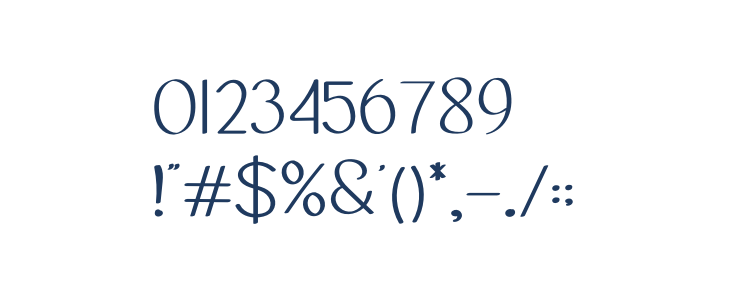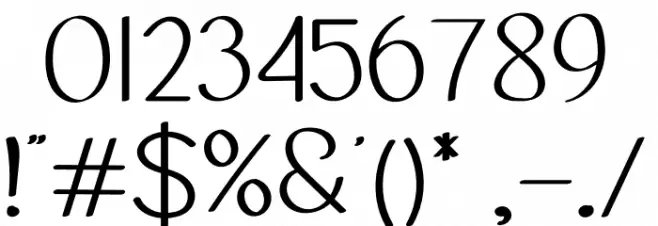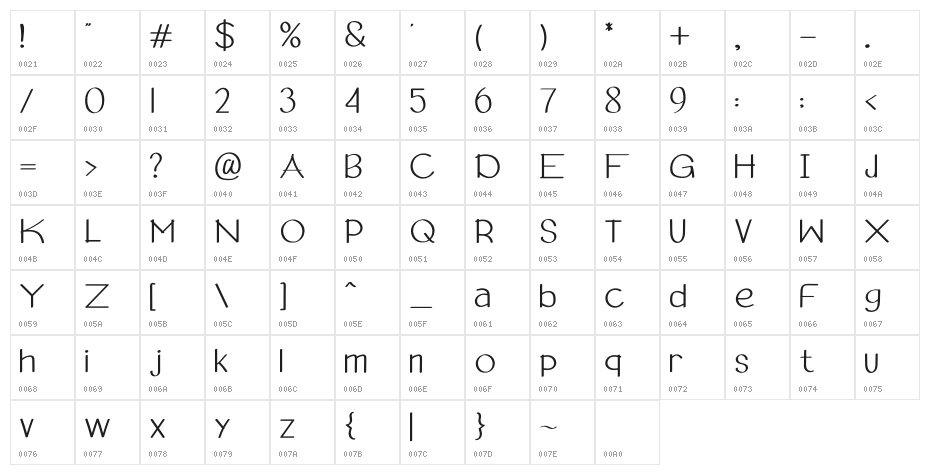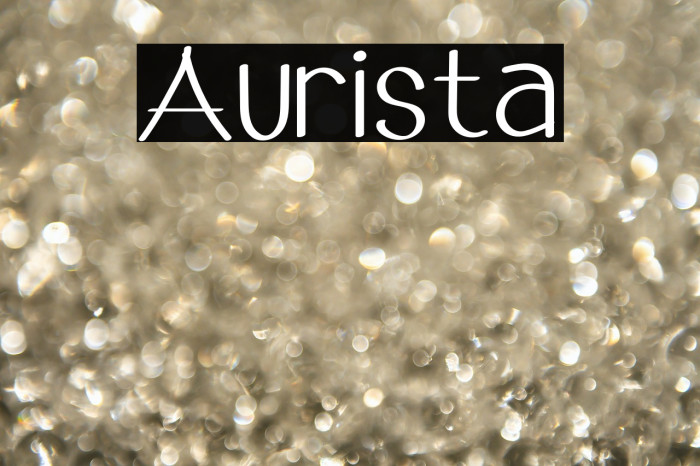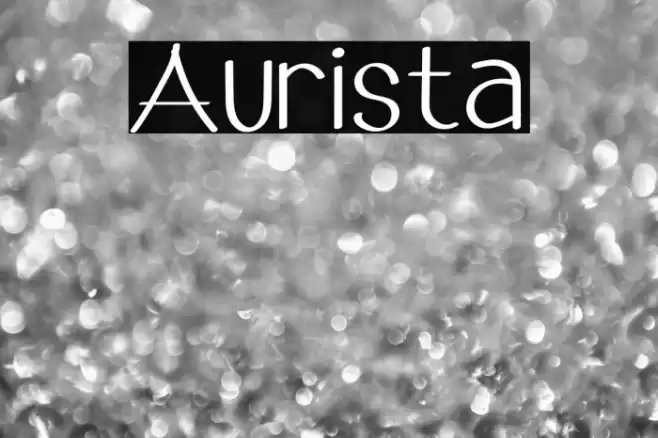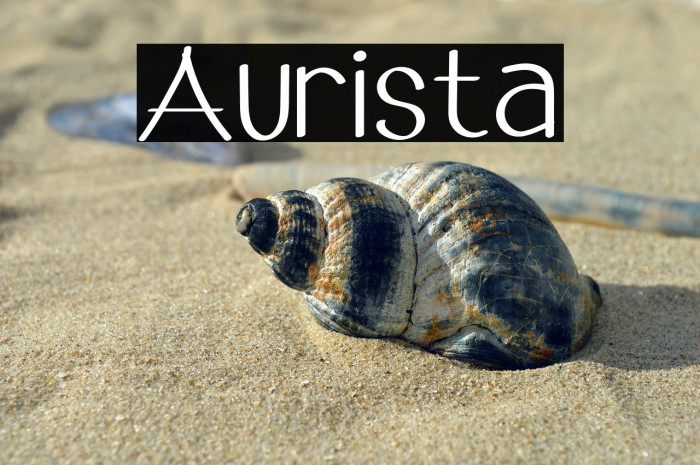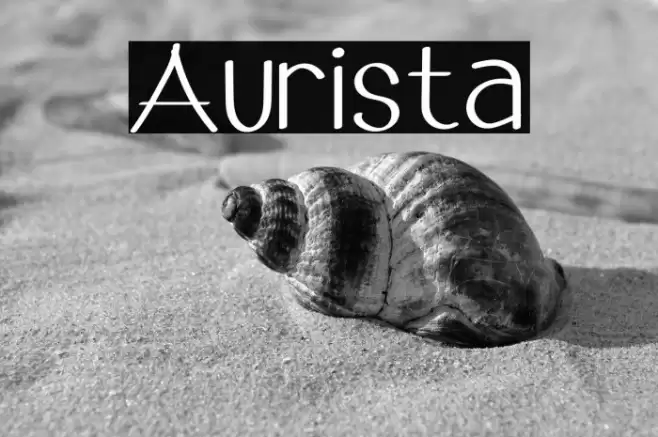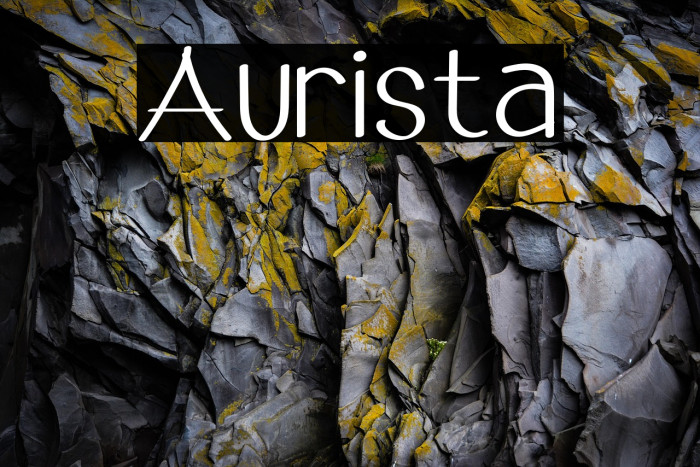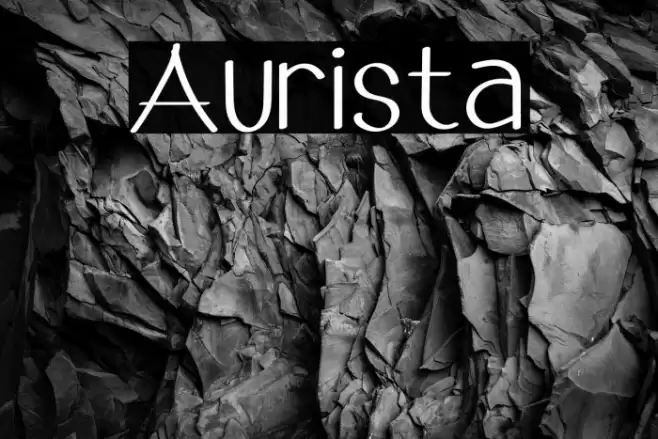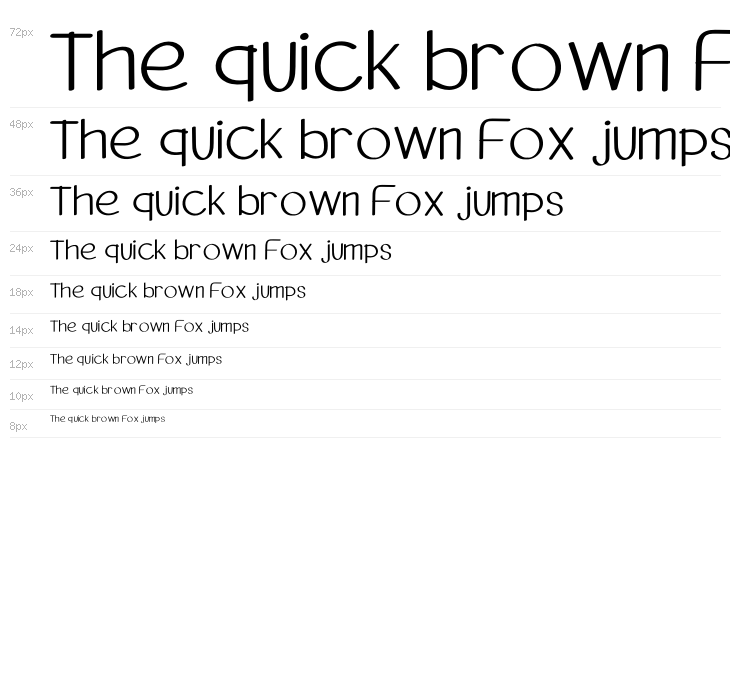
Aurista Font
Aurista Description
This font features a unique blend of geometric and organic shapes, creating a modern yet approachable feel. The uppercase letters are characterized by their clean lines and slightly rounded edges, giving them a contemporary look. The lowercase letters maintain a consistent style, with smooth curves and a balanced structure. The numerals are clear and easy to read, with a uniform width that complements the overall design. Special characters are thoughtfully designed to match the aesthetic, ensuring versatility across various applications. The font's overall appearance is sleek and stylish, making it suitable for a wide range of design projects.